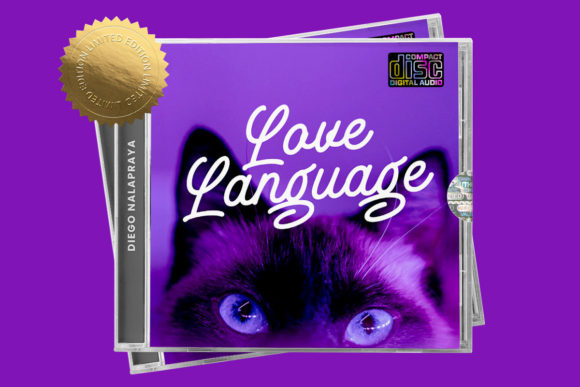
The Vaguer Font
The Vaguer is a beautiful, well balanced and vintage styled script font. It is defined by smooth curves and is perfect for fashion branding or editorial designs. Add it confidently to your projects, and you will love the results.